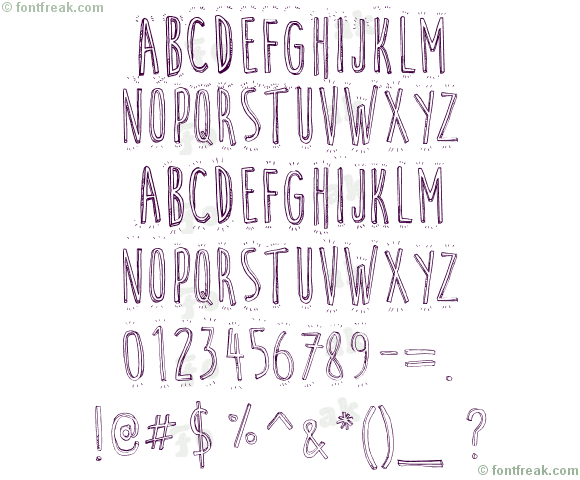
Cute Cartoon
About Cute Cartoon
The Cute Cartoon font by Galdino Otten Fonts is a delightful display typeface that captures the essence of fun and playfulness. Released in 2013 under a freeware license, this font is characterized by its whimsical design and informal charm. The strokes are relatively thick with a consistent weight, creating an inviting and friendly appearance. The letterforms feature subtle decorative elements, such as rounded edges and playful outlines that add character without overwhelming the text. The spacing is well-balanced, ensuring readability while maintaining a light-hearted feel.
Ideal for a variety of creative projects, the Cute Cartoon font shines in contexts where a cheerful and approachable vibe is desired. It is particularly well-suited for children's book covers, birthday party invitations, and playful branding for cafés or ice cream shops. Additionally, this font can make a memorable impact on social media graphics and merchandise aimed at younger audiences. Graphic designers, small business owners, and content creators will find this font an excellent addition to their toolkit, as it can enhance the visual appeal of their projects while resonating with a broad audience.
What sets the Cute Cartoon font apart is its ability to evoke a sense of joy and nostalgia, making it perfect for any creative endeavor that seeks to connect on an emotional level. Its unique style is not only versatile but also memorable, ensuring that any text set in this font will stand out. Whether you are looking to add a touch of whimsy to your designs or simply want to explore a font that offers both charm and functionality, the Cute Cartoon font free download is a valuable resource for your creative needs.